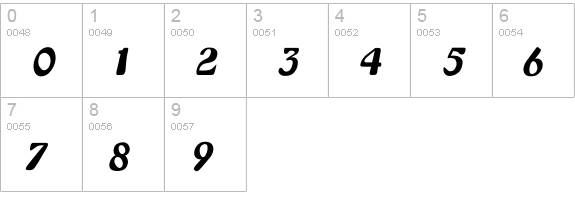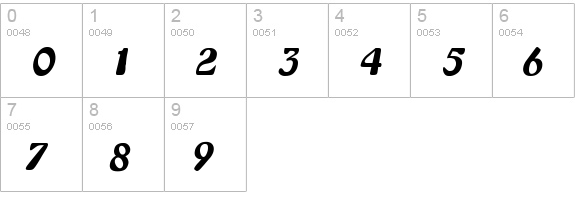
Rsdaytona Th Italic Font Details
Rsdaytona Th Italic is a distinctive, italic variant in the Rsdaytona typeface family \xE2\x80\x94 well suited to design and typography projects.
Introducing Rsdaytona Th Italic font, a sleek and stylish typeface perfect for adding a touch of sophistication to your designs. This elegant font features slanted letters and a modern look that will elevate any project it is used in. Whether you are creating a logo, branding materials, or website design, Rsdaytona Th Italic font is sure to make a statement. The best part? Rsdaytona Th Italic font is available for free download at FontsMarket.com. This means you can easily access this beautiful font and enhance your design projects without any cost. Don't miss out on this amazing opportunity to add a touch of class to your work with Rsdaytona Th Italic font. Download it today and start creating stunning designs!